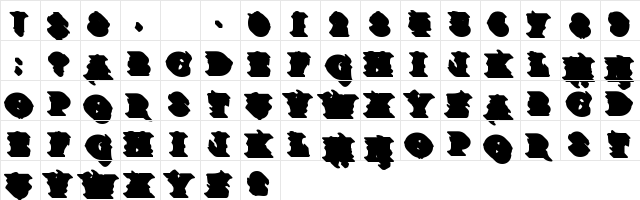
BTX-Chaos-Made-Shadow Regular
| Foundry | Betwixt Designs |
| Designer | Betwixt Designs |
Design Context for BTX-Chaos-Made-Shadow Typeface
BTX-Chaos-Made-Shadow is built around its visual character rather than neutral utility — its distinctive forms are designed to make an impression at display sizes.
Font Pairing: Pair with a clean neutral sans-serif for body copy to let BTX-Chaos-Made-Shadow's character lead without overwhelming the composition.
Pro Tip: Use BTX-Chaos-Made-Shadow exclusively at display sizes — it was designed to be seen, not read at length. Let a neutral companion handle body copy.